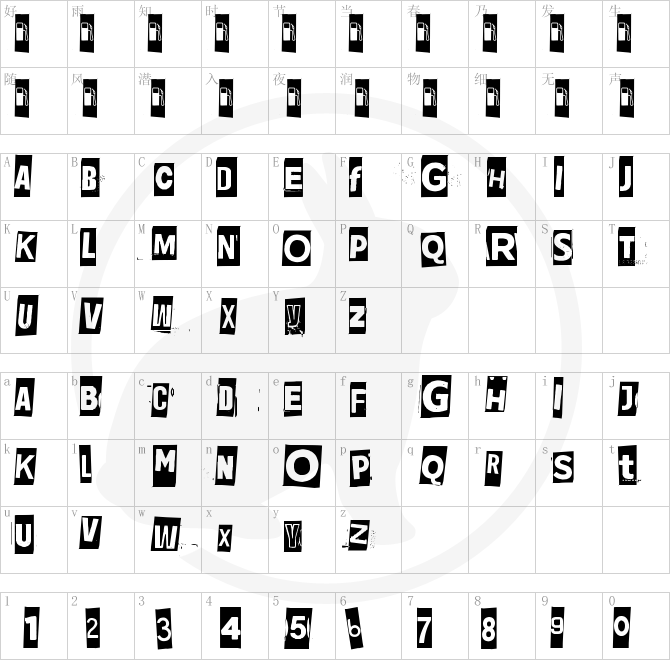
- Font Name:Jadefedgah[8002]
Jadefedgah-8002-.ttf is a very beautiful artistic font, Jadefedgah-8002-.ttf is widely used in the design and printing of various books and pictures,Jadefedgah-8002-.ttf has a strong visual impact,Jadefedgah-8002-.ttf is a commonly used font in newspapers, magazines and books, and is used in posters, e-commerce Poster design, store design, logo design, font design and other fields.Jadefedgah-8002-.